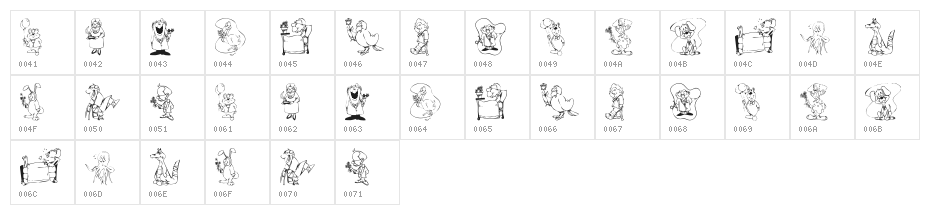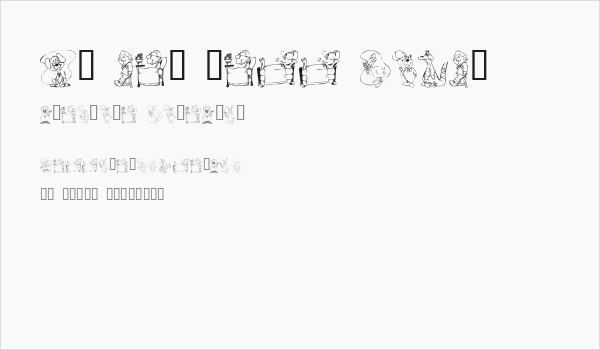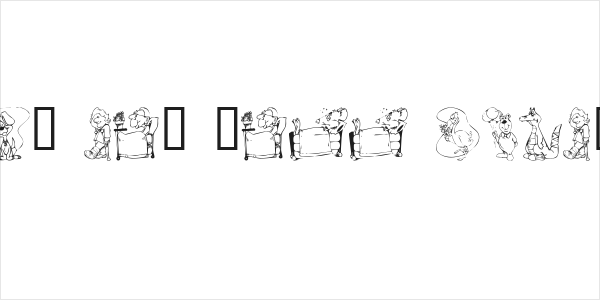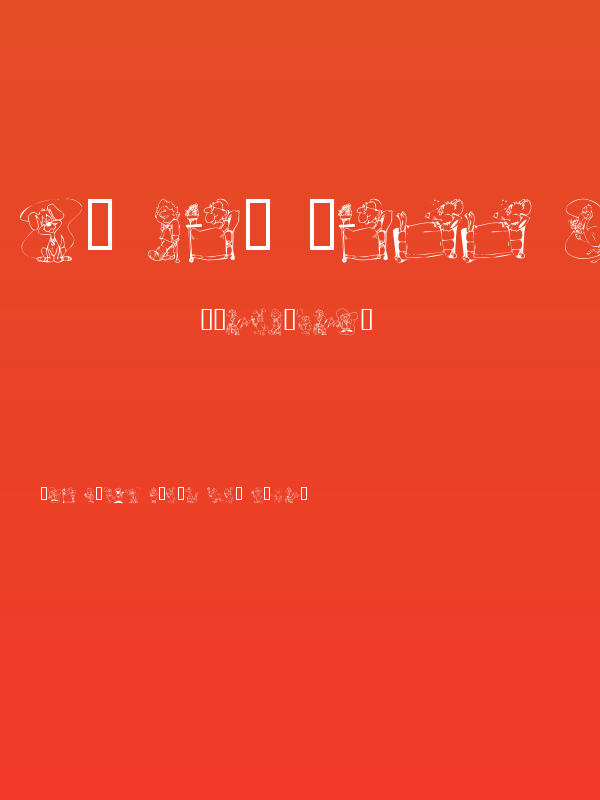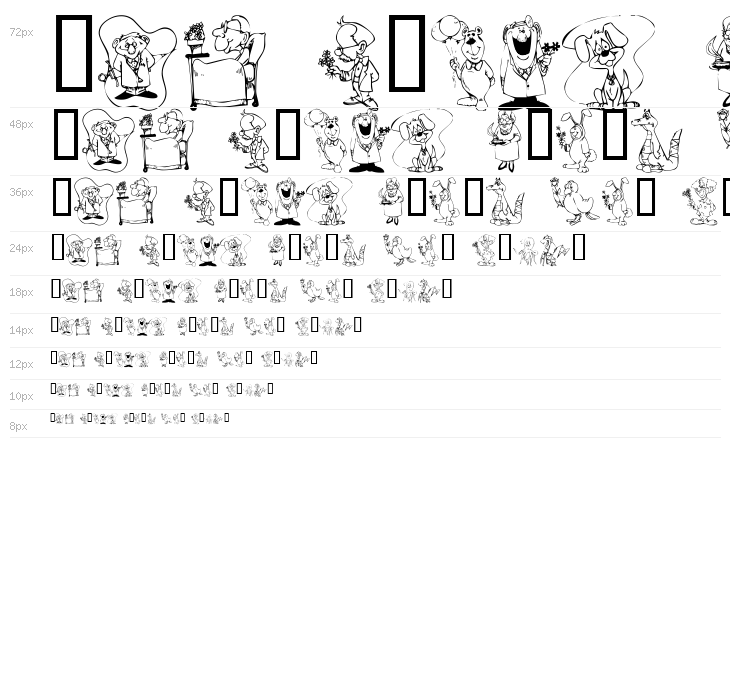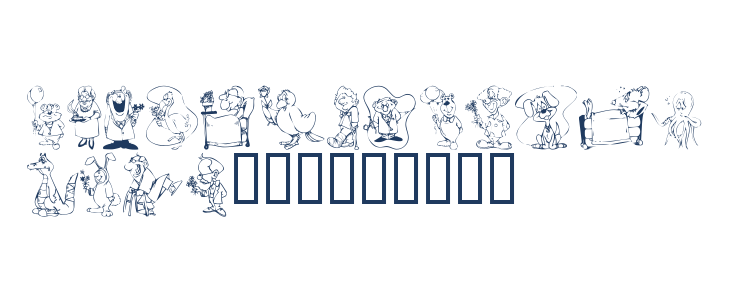
KR Get Well Dings Font
KR Get Well Dings Description
This is a whimsical and playful dingbat font featuring a variety of cartoon-style characters and illustrations. Each character is unique, depicting different humorous and lighthearted scenes, such as animals, people, and objects in amusing poses. The illustrations are detailed with expressive lines and a sense of motion, making them ideal for adding a fun and creative touch to designs. The style is consistent throughout, with a hand-drawn aesthetic that conveys a sense of warmth and friendliness. This font is perfect for projects that require a touch of humor and creativity, such as greeting cards, children's books, or playful branding materials.
| Overall Style | Whimsical |
| Use Case | Decorative elements, Illustrations |
| Proposed Projects | Ideal for greeting cards, children's books, playful branding, and creative designs. |